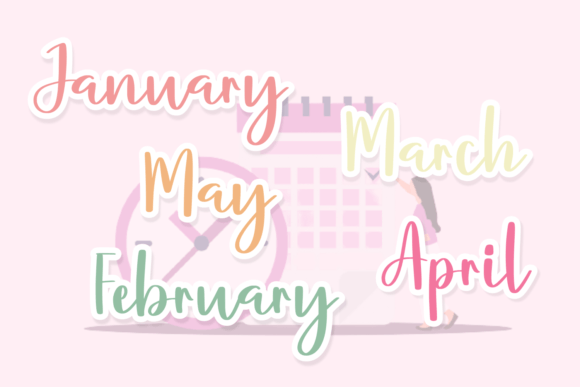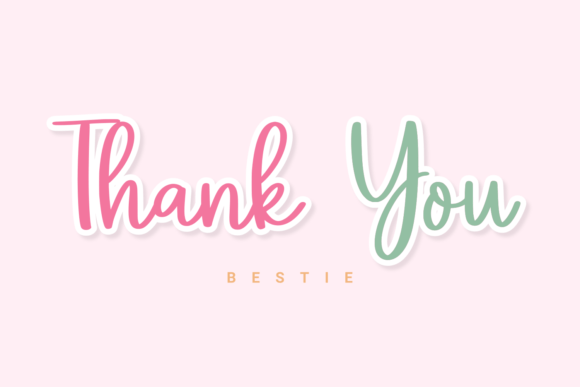
Introduction to Nulis Font Font
Fonts play a crucial role in design, and the Nulis Font font is a typeface that brings both character and versatility to any project. Whether you’re working on a branding project, a website, or a print design, the Nulis Font font offers a unique style that can elevate your work.
Nulis is a simple and friendly handwritten font.
Add it to your logos, labels, branding, invitations, websites, quotes, and more, and it will boost your designs and make them a true standout .
Key Features of Nulis Font Font
Why Choose Nulis Font Font?
The Nulis Font font is more than just a typeface – it’s a design tool that helps you communicate your message with style and clarity. Its unique character set and versatile design make it suitable for a wide range of applications, from elegant invitations to bold headlines.
With its carefully crafted letterforms and balanced proportions, the Nulis Font font ensures readability and visual appeal across all mediums.
What makes Nulis Font font special?
The Nulis Font font stands out with its unique design, exceptional readability, and versatility across various design applications.